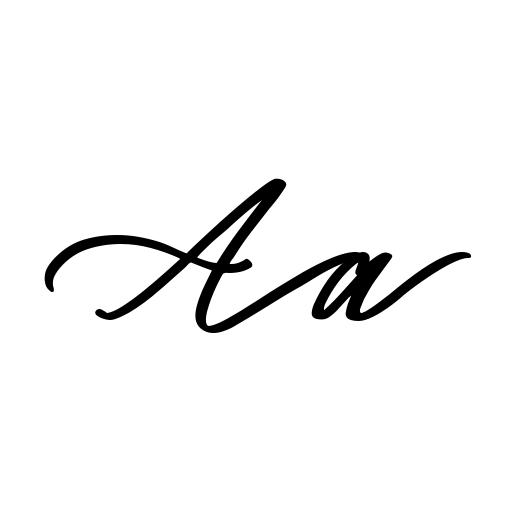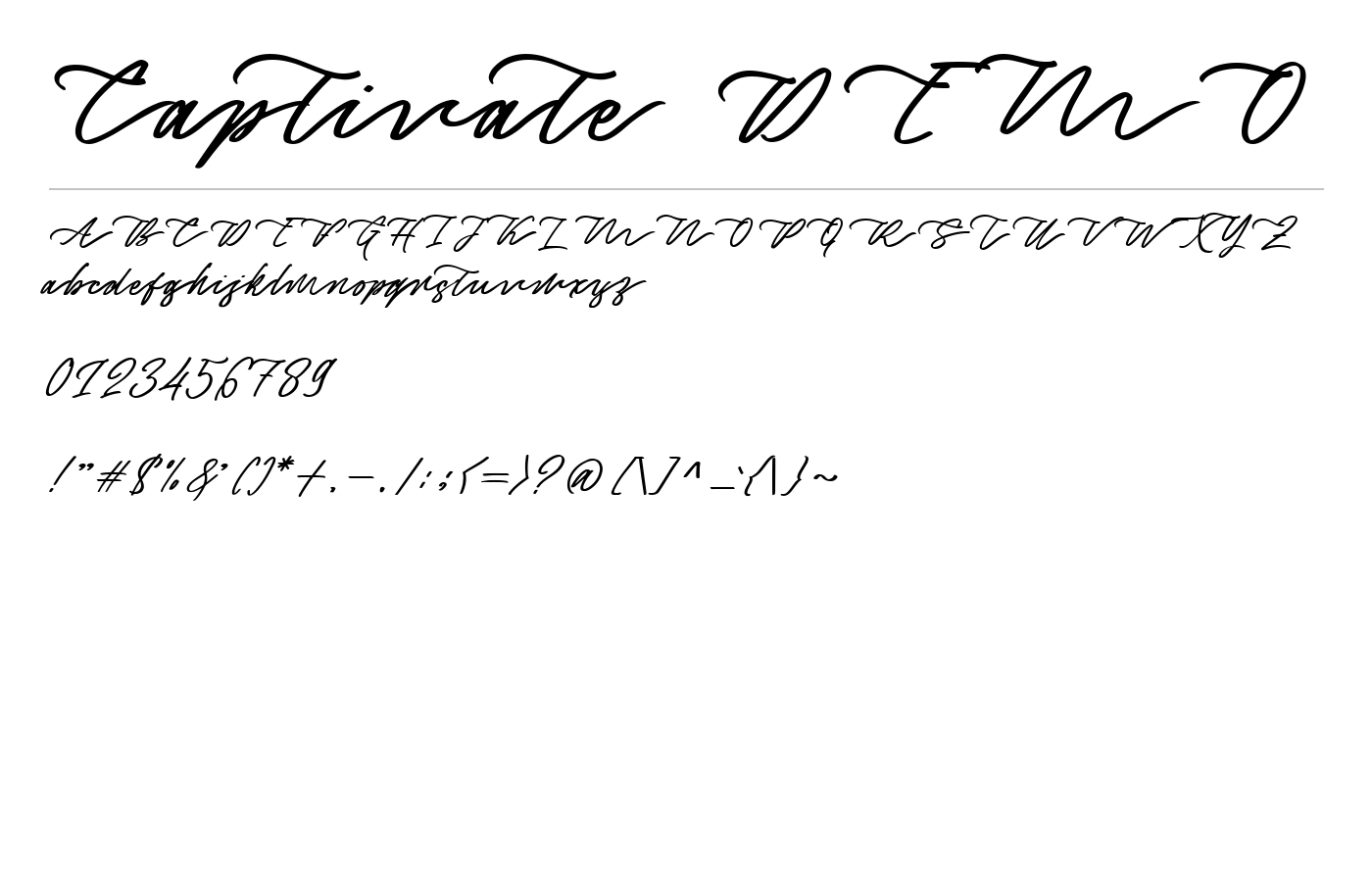
Captivate DEMO is an elegant, flowing script font with a delicate, hand-drawn feel and high contrast between its thin upstrokes and thicker downstrokes. Its graceful letterforms feature smooth, curving lines and distinctive flourish details, making it perfect for invitations, branding, and creative projects seeking a personal, sophisticated touch. This font works especially well in design contexts that call for an artistic, refined, and feminine style.
Captivate DEMO Font